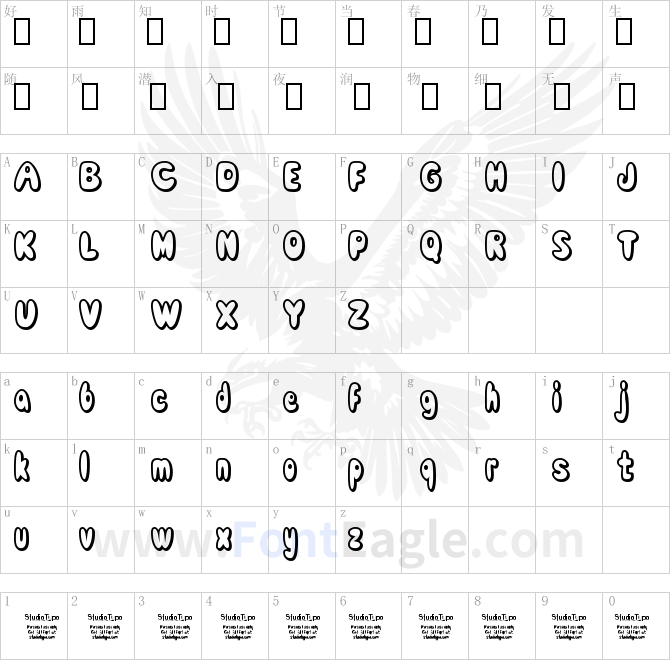
- Font name:Comic White Rabbit
Comic-White-Rabbit is a great font, widely used in graphic design, single-page menu design, poster design and other fields, and is deeply loved by designers.Comic-White-Rabbit download.